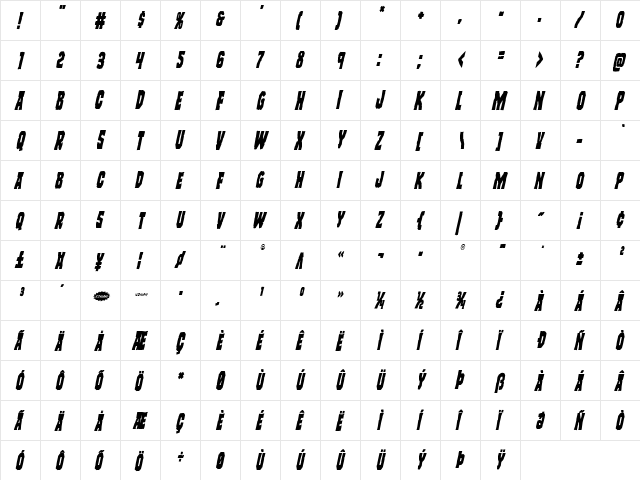
Design Context for Freakfinder Condensed Italic Typeface
Freakfinder Condensed Italic offers clean, dependable letterforms without strong stylistic allegiance, making it a practical choice for designers who need flexibility. Its italic angle brings a sense of urgency and motion to the letterforms. Its narrow stance lets it pack a punch even in space-constrained designs.
Pro Tip: Use Freakfinder Condensed Italic for emphasis, pull quotes, and subheadings where its slanted energy can add rhythm to the layout.